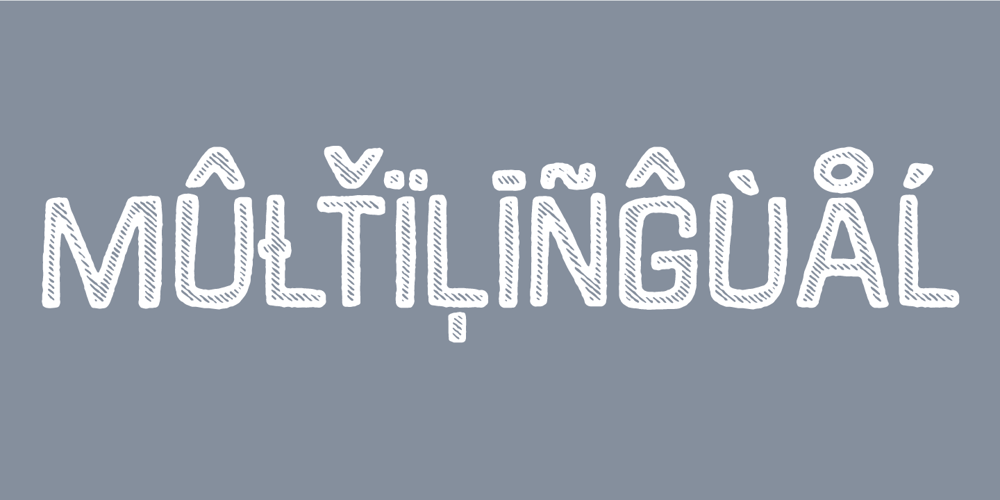
Quick Fix Font Family was designed by Jakob Fischer and published by PizzaDude.dk. Quick Fix contains 3 styles and family package options. Quick Fix is a font for your creative posters. Play around with the 3 layers and create eye-catching designs – the font uses contextual alternates, and in this case you have 5 different letters to work with, along with multilingual support!